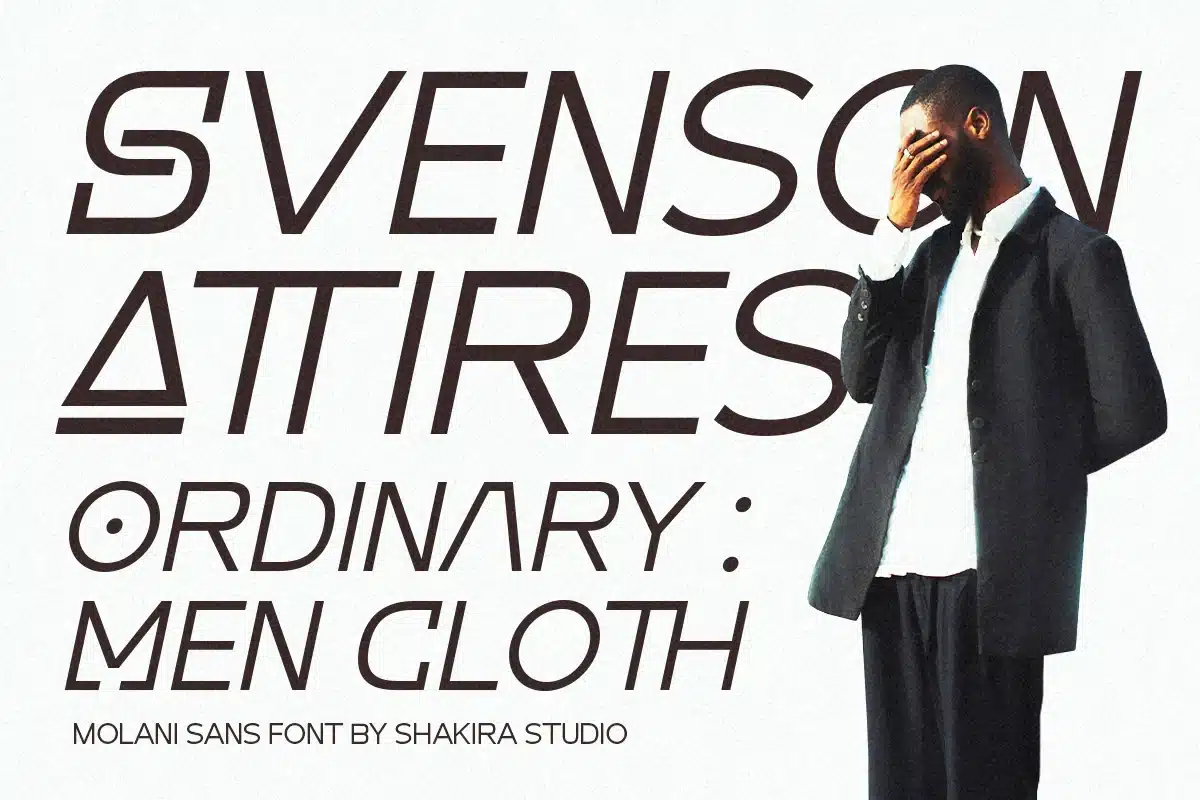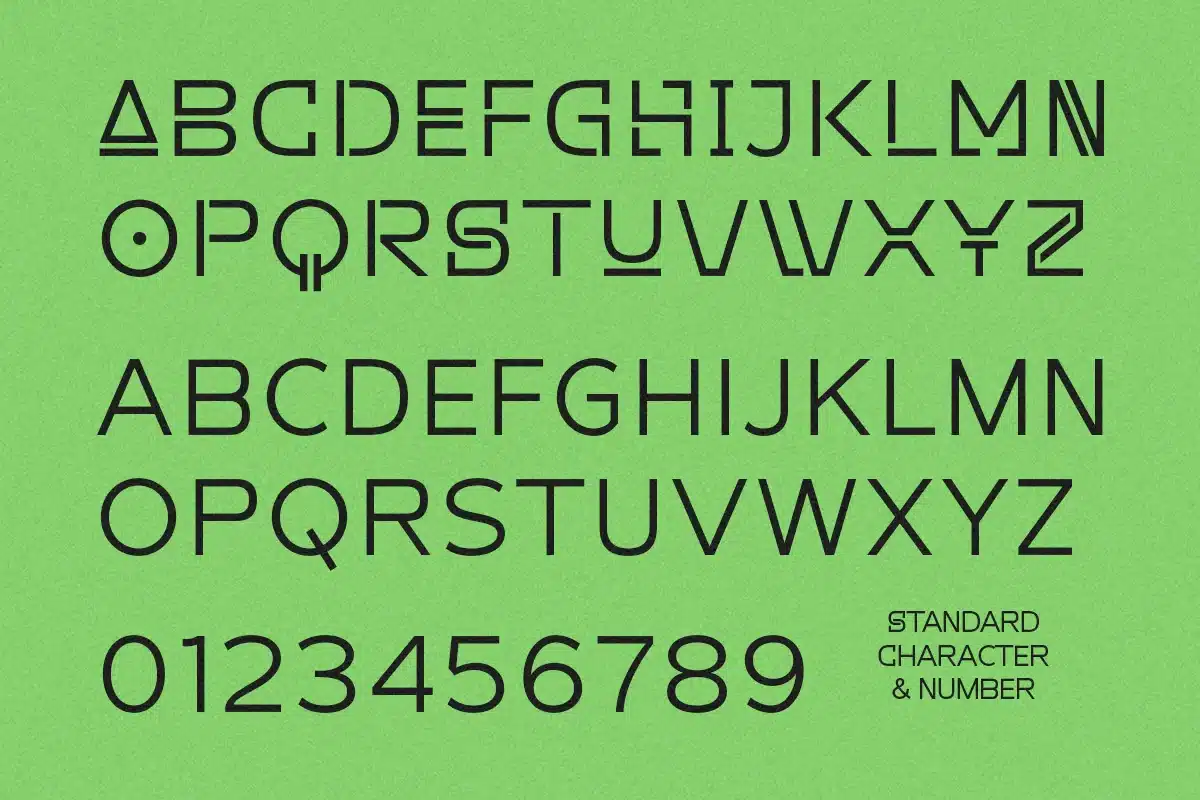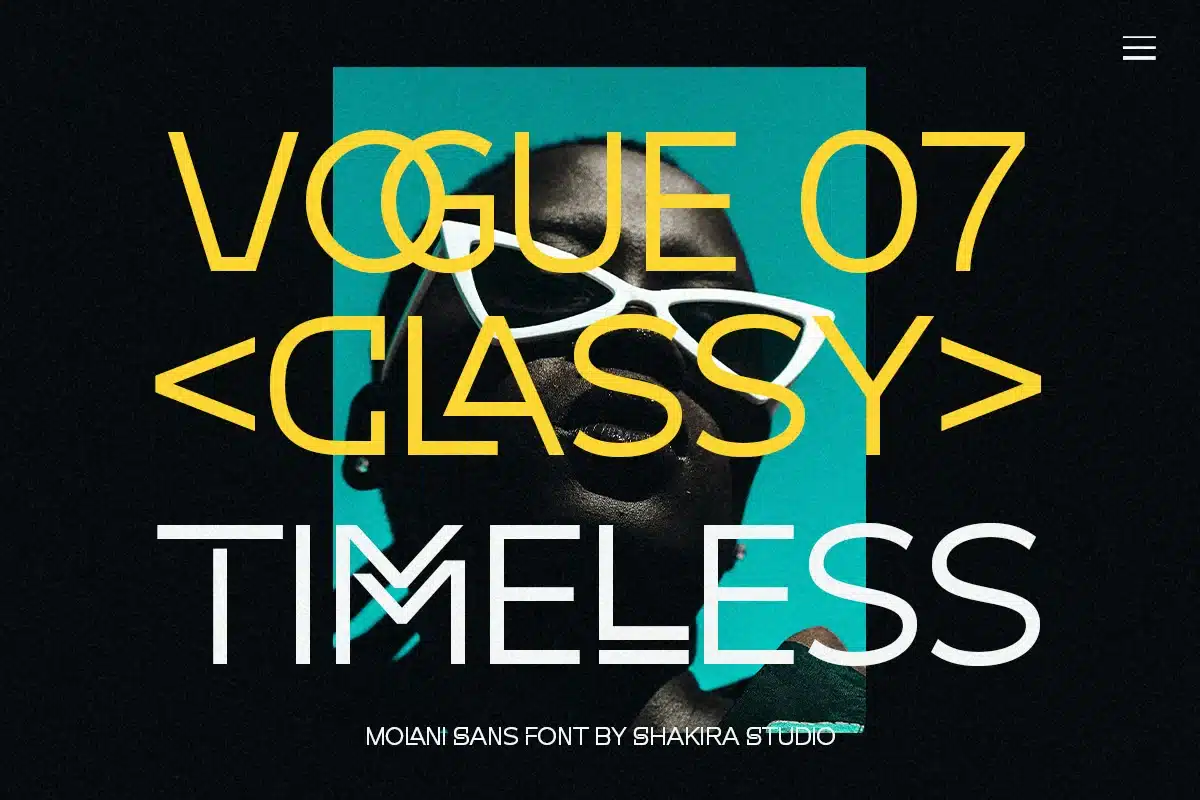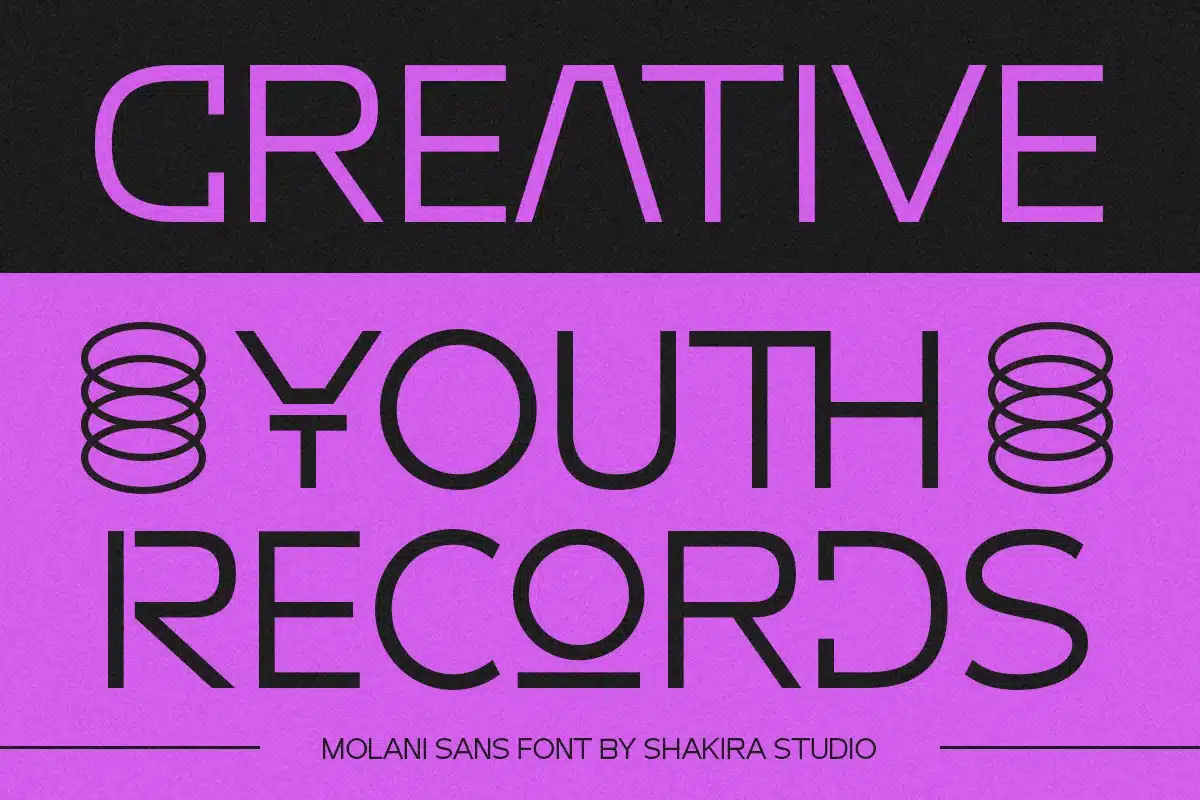
Molani – Modern Sans Font
"Introducing Molani – a breakthrough in the realm of Modern Sans Serif Display fonts. Crafted meticulously for a contemporary aesthetic, Molani offers designers the flexibility of Regular and Italic styles, accompanied by an array of stylish alternates and ligatures. Its clean, modern lines ensure outstanding readability across multiple languages, making it a versatile choice for branding, editorial, and digital experiences. Elevate your design work with Molani, the font that blends precision with trendsetting flair."
Regular & Italic
- Opentype features ( ligature, alternate )